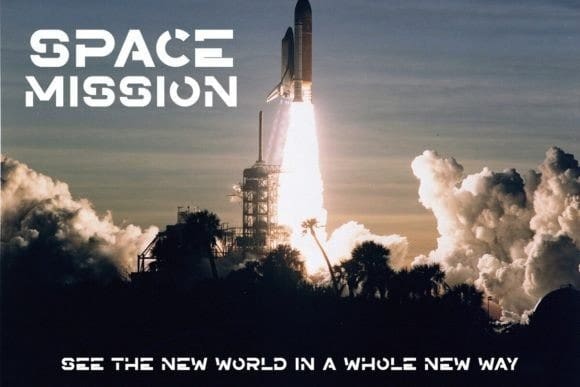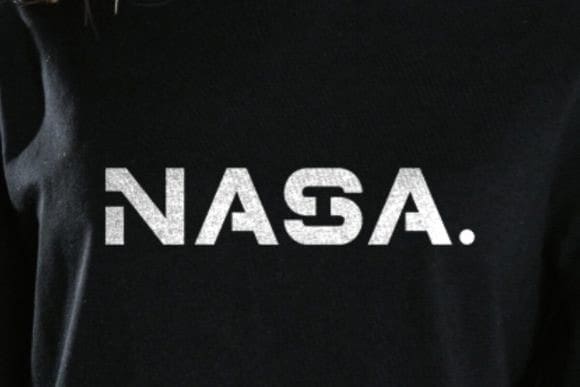
Space Break Font
Space Break Font is a modern and futuristic font that seamlessly blends future aesthetics with the essence of space. Space Break is a font with cosmic vibes and captures the spirit of the future and the vastness of space, making it an ideal choice for a variety of creative endeavors.